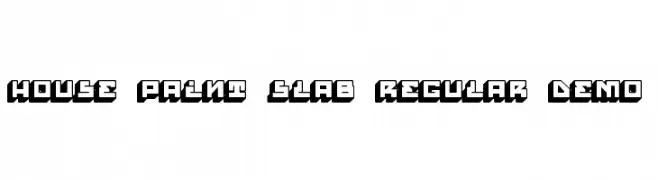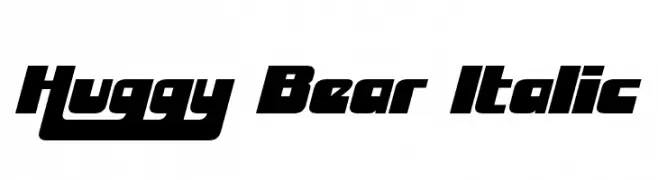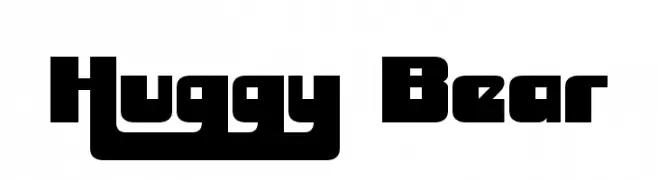
Bold, 3D slab serif font with strong shadow effects.
A modern, narrow font with vintage flair and consistent stroke width.
A bold, distressed display font with a rugged, grunge aesthetic.
A bold, distressed font with a gritty, vintage appearance.
A bold, handwritten font with an energetic and expressive style.
A bold, expressive handwritten font with dynamic strokes.
A bold, playful font with a comic-like, textured design.
A bold, geometric font with a modern, industrial style.
A bold, italicized font with a futuristic and sporty design.
A bold, hand-drawn font with a playful and artistic style.